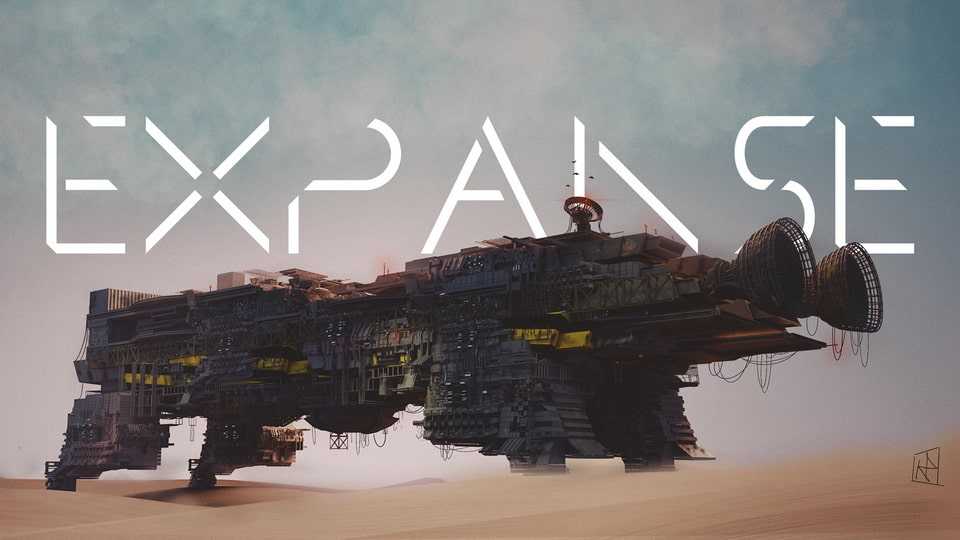
Download Expance font, a clean modern minimalist typeface. The sleek stencil design of Expance emphasize the smart feel and stands out in the futuristic sci-fi projects.
Designer: Ryan Lin